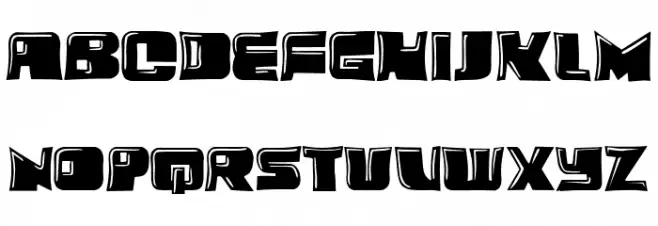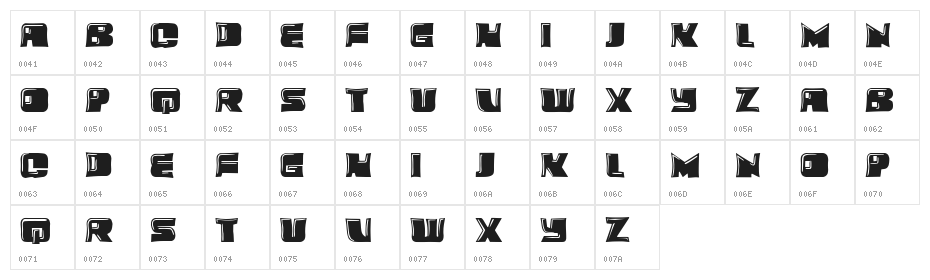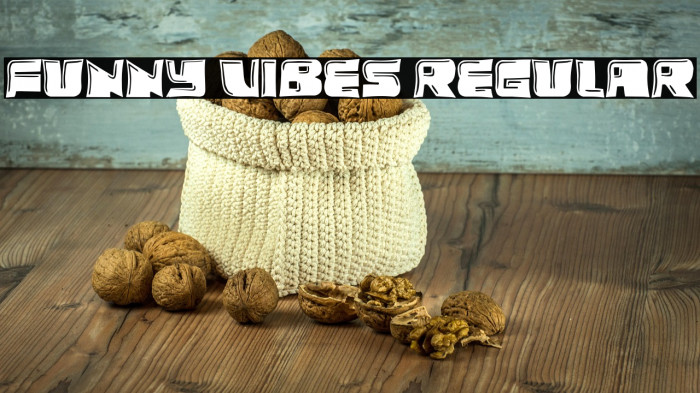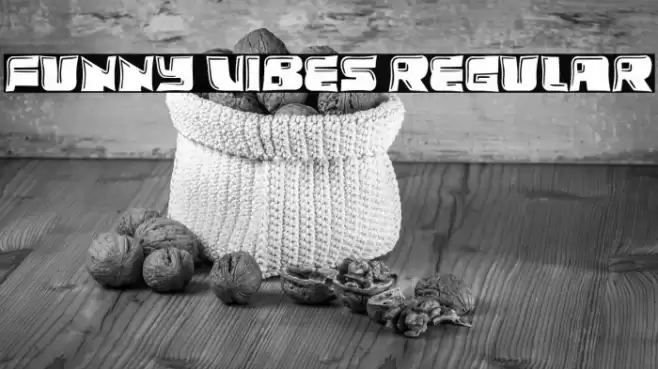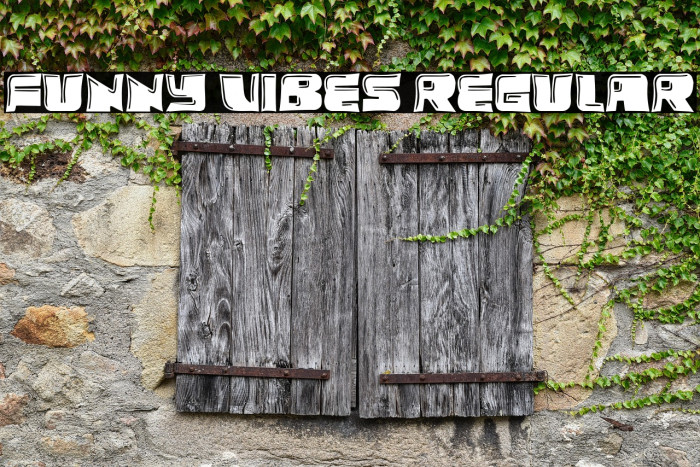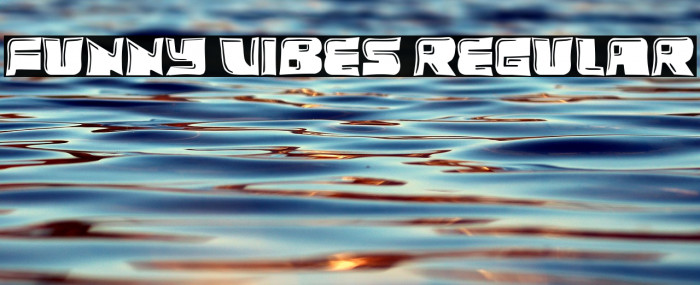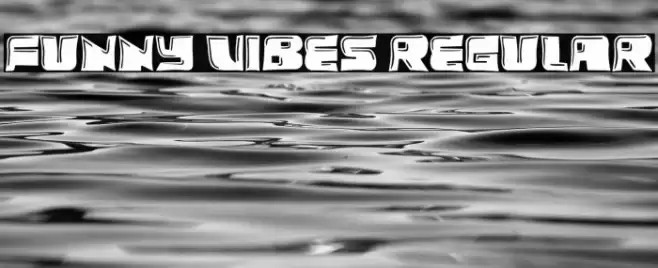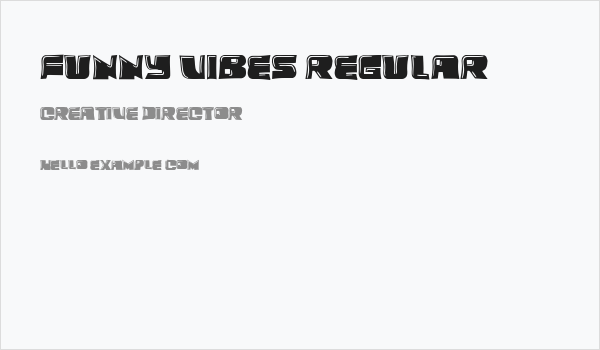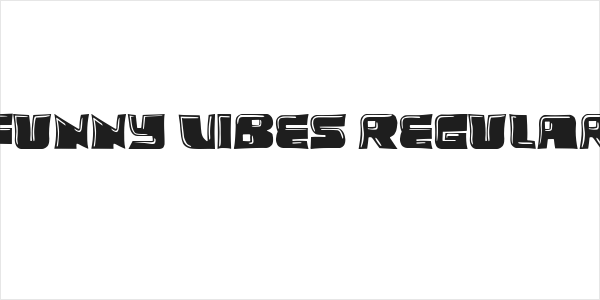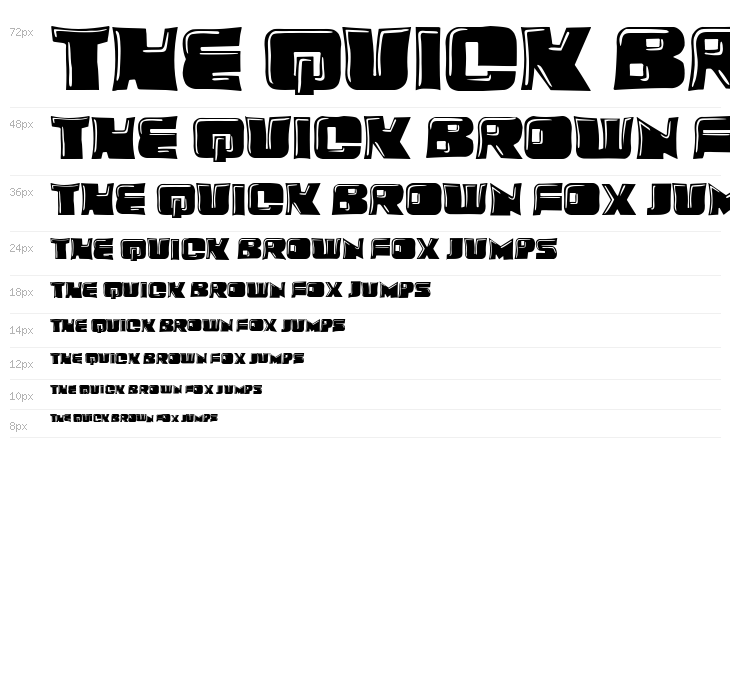
Funny Vibes Regular Font
Funny Vibes Regular Description
This font features a playful and bold design, characterized by its thick, blocky letters with a slightly irregular shape that adds a whimsical touch. The uppercase letters are prominent and eye-catching, making them suitable for attention-grabbing headlines or titles. The font's unique style is further enhanced by its slightly uneven edges, giving it a hand-drawn feel. The overall appearance is both fun and dynamic, making it ideal for creative projects that require a lively and energetic vibe.
| Overall Style | Playful, Energetic, Whimsical |
| Proposed Projects | Ideal for children's book covers, playful branding, party invitations, and creative posters. |